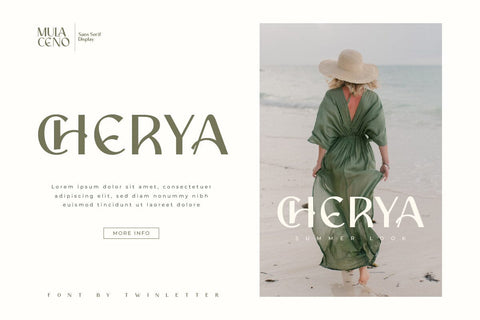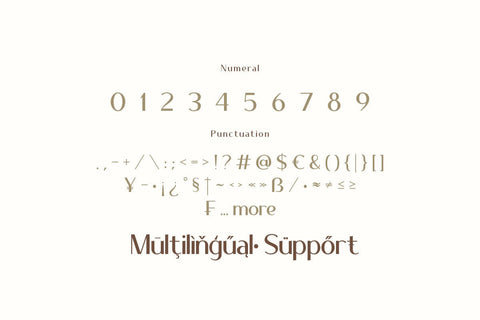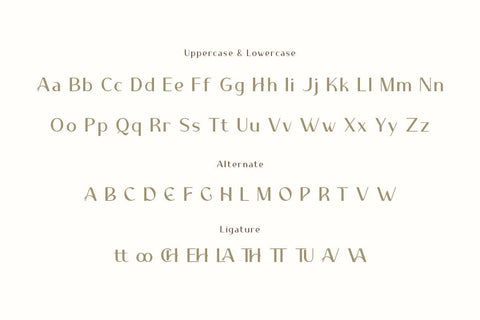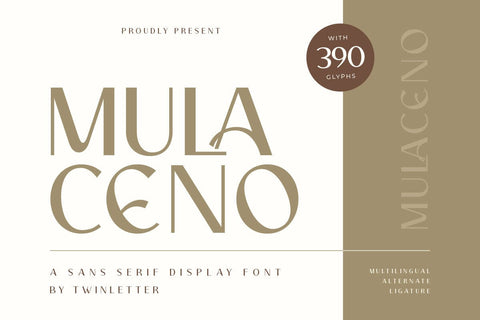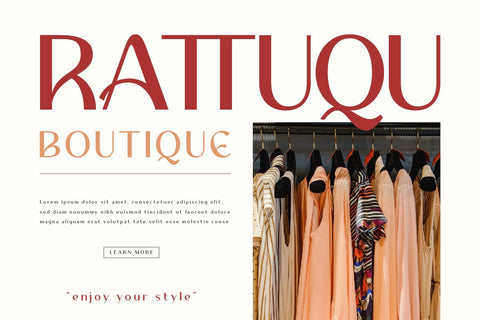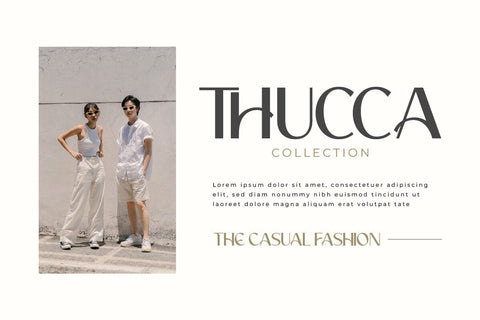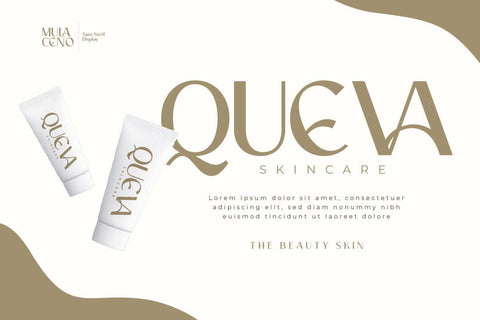
Mulaceno - Display Font
Step into the realm of Mulaceno, where every curve tells a story and every line whispers elegance. Immerse yourself in the allure of this enchanting display font, meticulously crafted to infuse your designs with a dash of intrigue and a hint of sophistication. With its uniquely captivating shape, Mulaceno beckons the eye and invites exploration, making it the perfect choice for those seeking to leave a lasting impression. Whether you're designing for high-end fashion labels, luxury brands, or creative ventures that dare to stand out, Mulaceno offers a canvas as unique as your imagination. Elevate your projects with this versatile font, tailor-made for branding, editorial work, and everything in between. Let Mulaceno be your muse as you embark on a journey of creativity and distinction.